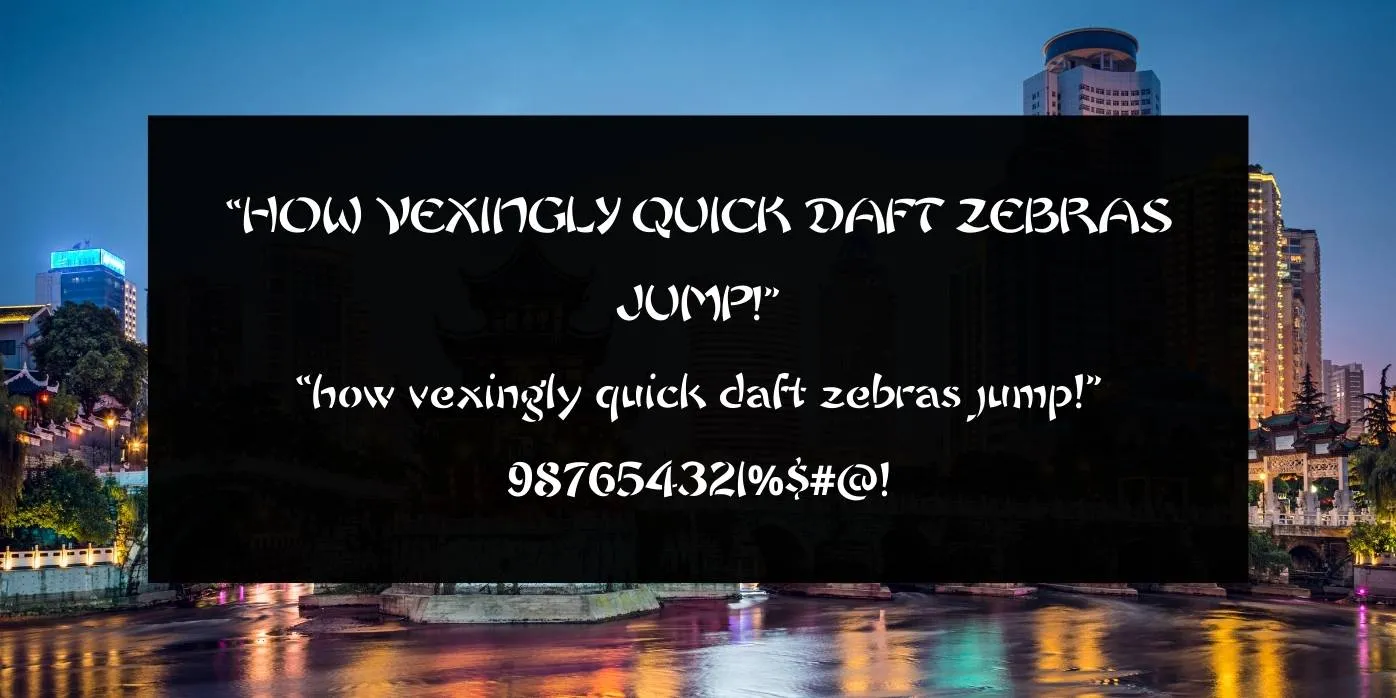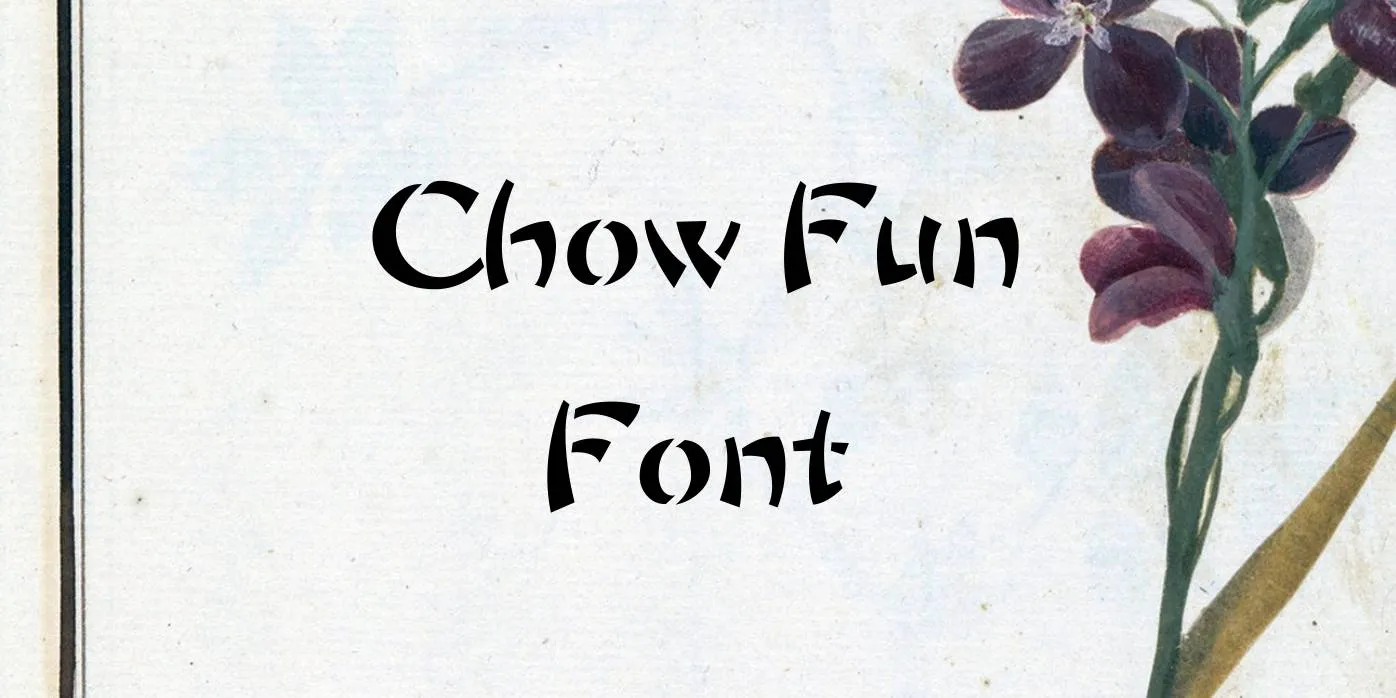
Chow Fun Font
Here we discuss the detailed information of Chow Fun Font. It was designed by Harold Lohner. It has several characters 231 and some glyphs 191. Its weight is normal and the width of the font is Medium (normal).
Platforms supported by this Macintosh are Roman. It is a Japanese font with a foreign look. Its bold and interesting look gives a very funny and attractive look to your projects. It also looks good with mitr font.